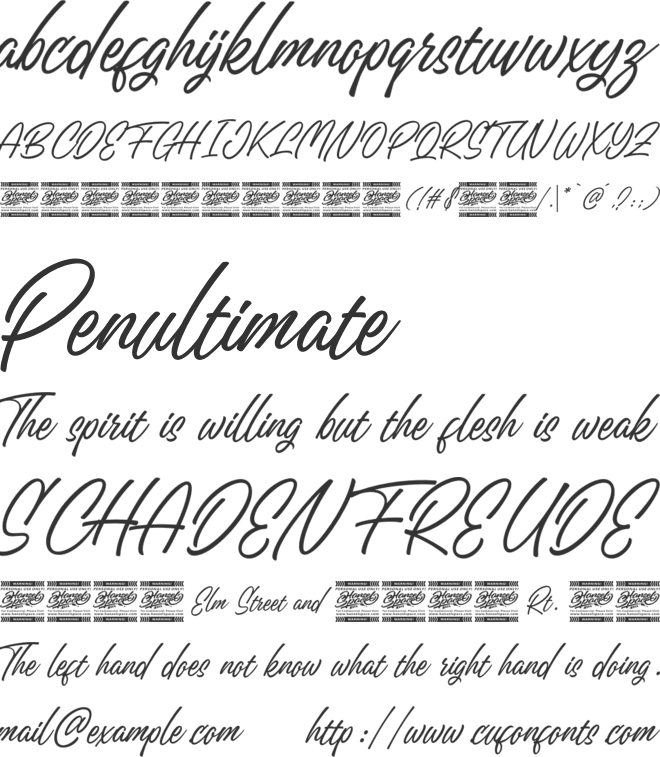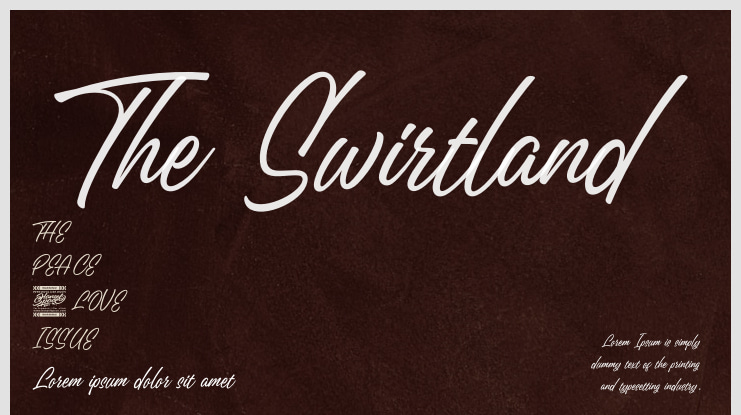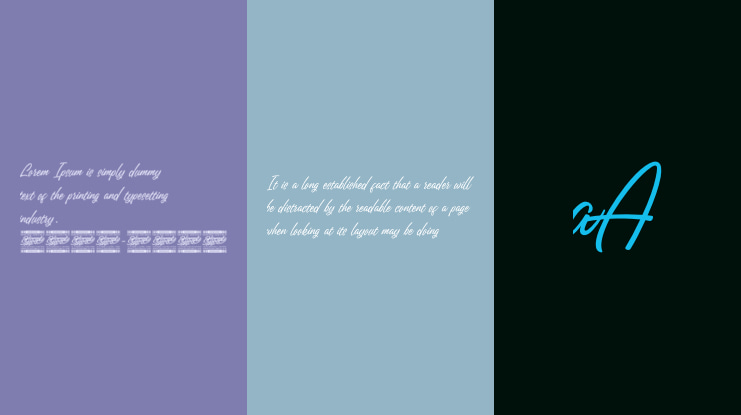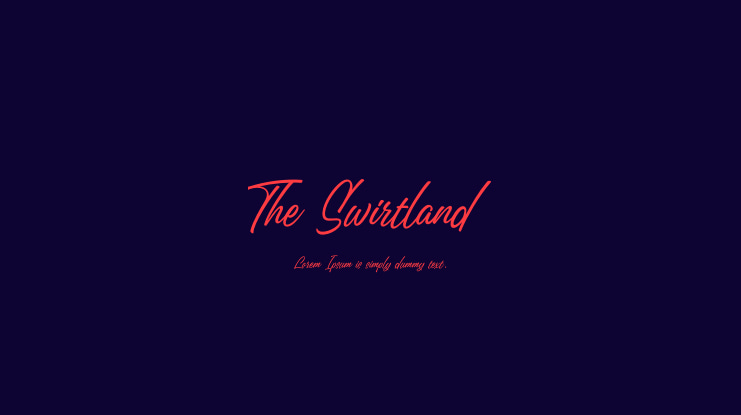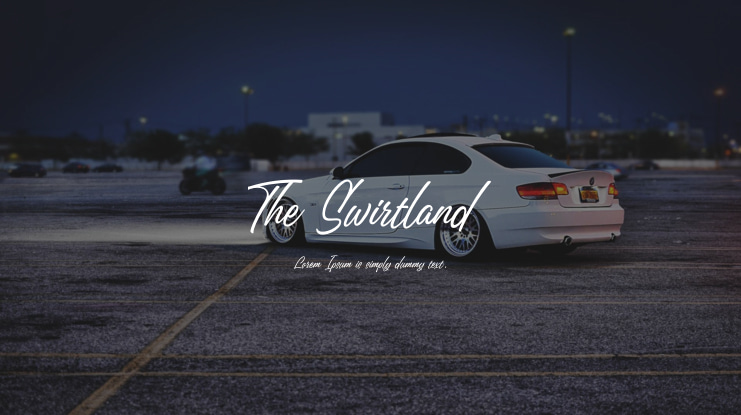
**Product Description**
Are you searching for a modern, trendy script font? Do you want to create something that stands out and inspires endless creativity, imagination, and fun? What are you waiting for? We have the perfect choice for you.
Introducing The Swirtland Script. It displays a neat hand lettering style, made with a touch of personality in every curve of the letter anatomy. I hope it inspires you in your projects and assists you in designing. It comes with a very practical bonus Swash set, ideal for logos, handwritten quotes, product packaging, headers, posters, merchandise, social media, and greeting cards.
**Features:**
- Full set of standard alphabet and punctuation - Multilingual characters (ÁÂÄÀÅÃÆÇÐÉÊËÈÍÎÏÌÑÓÔÖÒØÕÚÛÜÙẂŴẄẀÝŶŸỲ áâäàåãæçðéêëèíîïìñóôöòøõœúûüùẃŵẅẁýŷÿỳ€£¥)